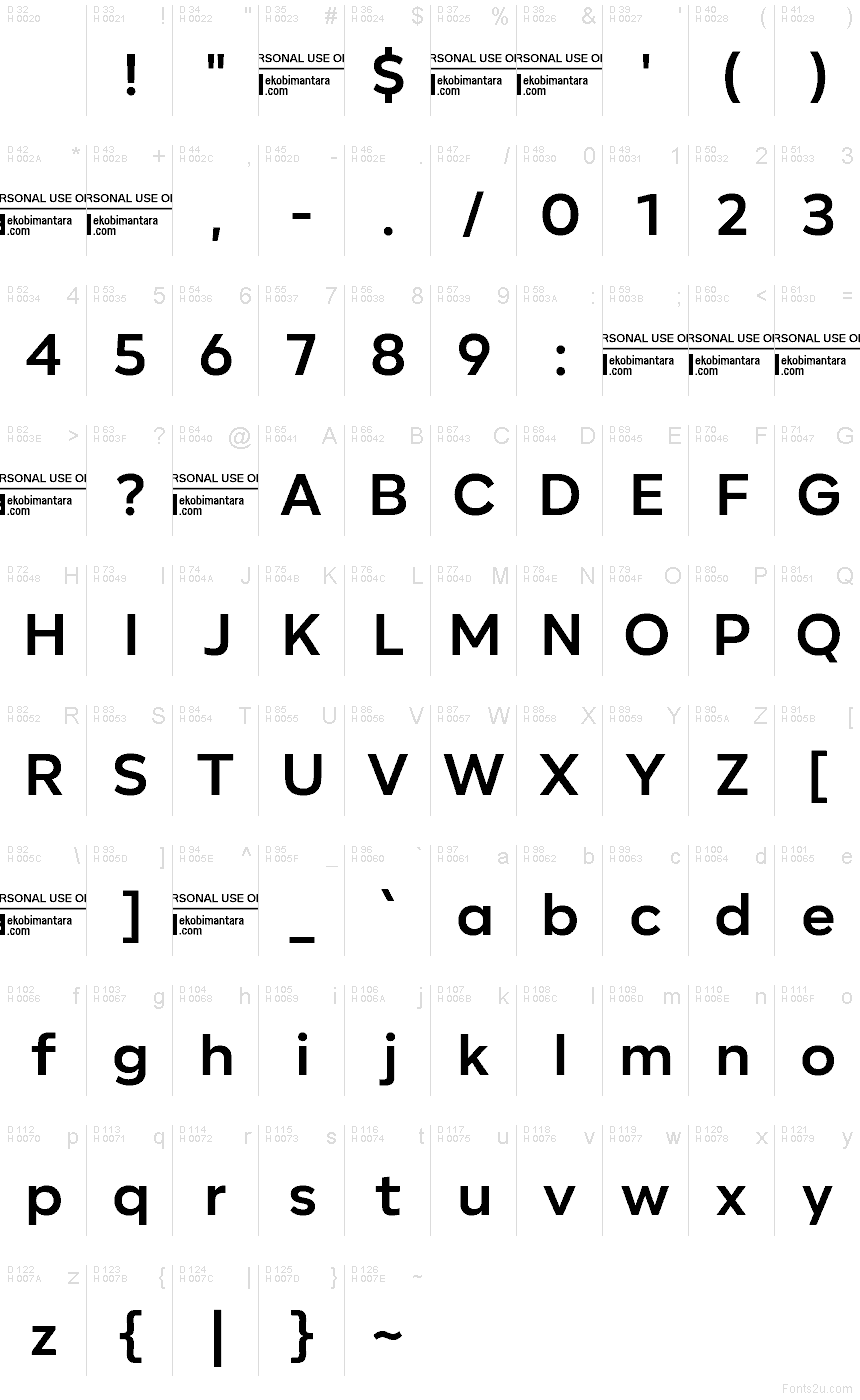
Geova Trial Semi Bold
Geova Semi Bold font by Eko Bimantara is a free geometric sans serif font. Built within the Geova family, it nails that tricky balance: soft, rounded bowls that feel friendly, with crisp cuts and steady spacing that read clean at any size. The weight lands with confident presence without shouting, so headlines hold their ground while body copy stays calm and breathable.
Using Geova Semi Bold, you get a versatile voice for tech branding, startup logos, app UI headers, packaging, posters, slide decks, and wayfinding. This free font shines on bold statements and short paragraphs alike. For a tidy system, pair it with Geova Regular for body text, and keep tracking snug to preserve its solid rhythm.